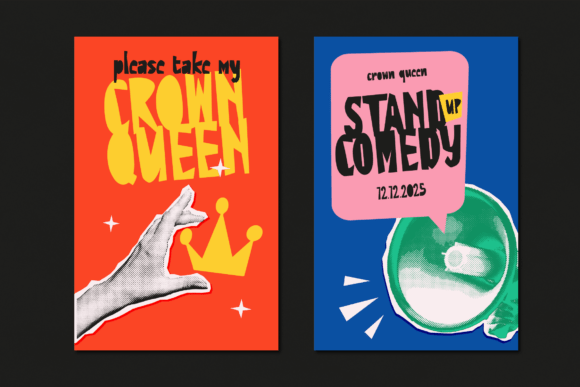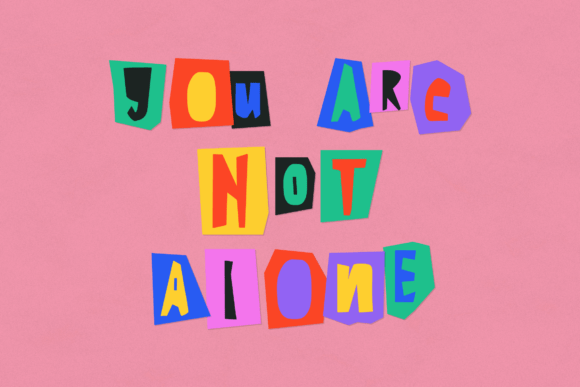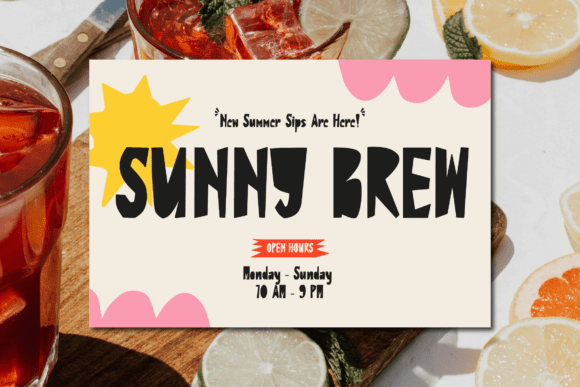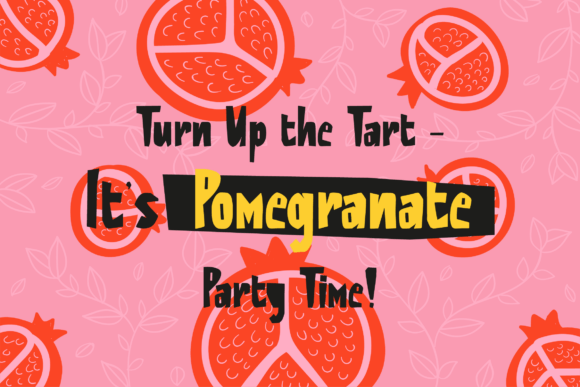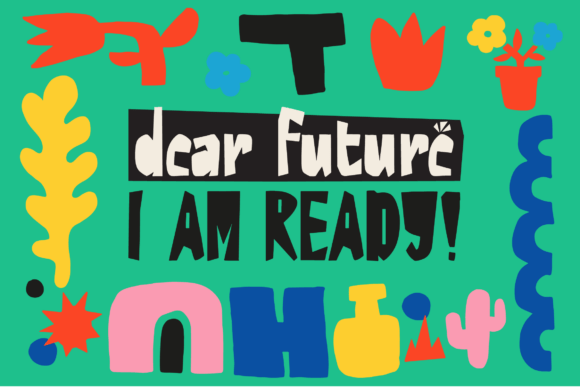
Introducing Cranky Scraps Font: Unleash Your Creativity with this Quirky Display Font
Are you tired of using the same old boring fonts in your designs? Do you want to add a touch of playfulness and rebellion to your projects? Look no further than Cranky Scraps Font, a loud, quirky, and unapologetically fun display font that’s perfect for designers and crafters who want to make a statement.
Inspired by DIY Cut-and-Paste Lettering
Cranky Scraps Font is inspired by the DIY cut-and-paste lettering that was popularized by crafty artists and designers who wanted to create something unique and eye-catching. With its bold shapes, jagged edges, and playful attitude, this font is sure to add a creative edge to any project.
Cranky Scraps Font is perfect for a wide range of projects, including posters, album covers, kids’ books, and more. Its bold and playful design makes it ideal for projects that need to stand out and grab attention. Whether you’re a designer, artist, or crafter, this font is sure to inspire you to create something truly unique and eye-catching.
Key Features of Cranky Scraps Font
• Bold Shapes: Cranky Scraps Font features bold shapes that are sure to grab attention and add a touch of playfulness to your designs.
• Jagged Edges: The font’s jagged edges add a touch of rebelliousness and edginess to your designs, making it perfect for projects that need to stand out.
• Playful Attitude: Cranky Scraps Font has a playful attitude that’s sure to add a touch of whimsy and fun to your designs.
• Uncut Version: The font also comes with an uncut version, which adds an extra layer of versatility to your designs.
Why Designers and Crafters Love Cranky Scraps Font
Designers and crafters love Cranky Scraps Font for its unique and playful design. The font’s bold shapes and jagged edges make it perfect for projects that need to stand out, while its playful attitude adds a touch of whimsy and fun. The uncut version of the font also adds an extra layer of versatility, making it perfect for a wide range of projects.
Tips for Using Cranky Scraps Font
• Use it as a Headline Font: Cranky Scraps Font is perfect for use as a headline font, where its bold shapes and jagged edges can really make a statement.
• Pair it with Other Fonts: The font pairs well with other fonts, so feel free to experiment with different combinations to find the perfect look for your project.
• Experiment with Colors: Cranky Scraps Font looks great in a variety of colors, so don’t be afraid to experiment and find the perfect color scheme for your project.
In conclusion, Cranky Scraps Font is a loud, quirky, and rebellious display font that’s perfect for designers and crafters who want to add a touch of playfulness and creativity to their projects. With its bold shapes, jagged edges, and playful attitude, this font is sure to inspire you to create something truly unique and eye-catching. So why wait? Download Cranky Scraps Font today and start unleashing your creativity!